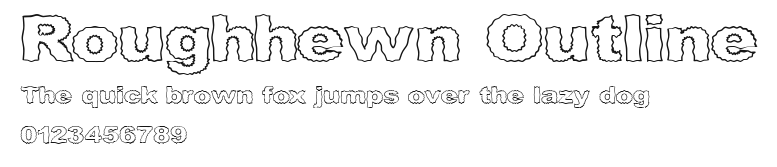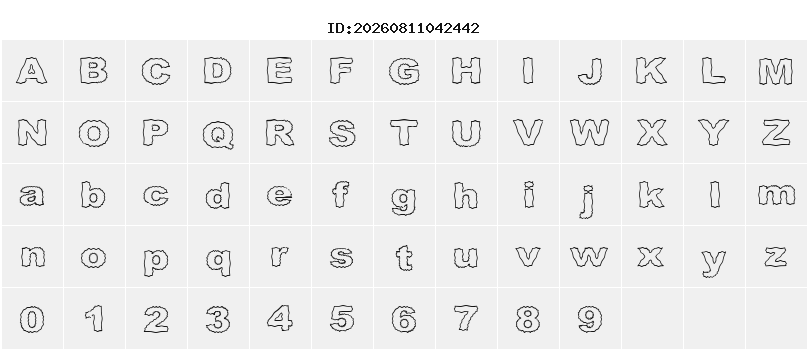
Roughhewn Outline Preview
• Font Name: Roughhewn Outline
• Full Font Name: Roughhewn Outline
About Roughhewn Outline.ttf
Roughhewn Outline.ttf is a modern, elegant sans-serif font designed for ultimate readability and visual harmony. Perfect for branding, headlines, web design, and print materials.